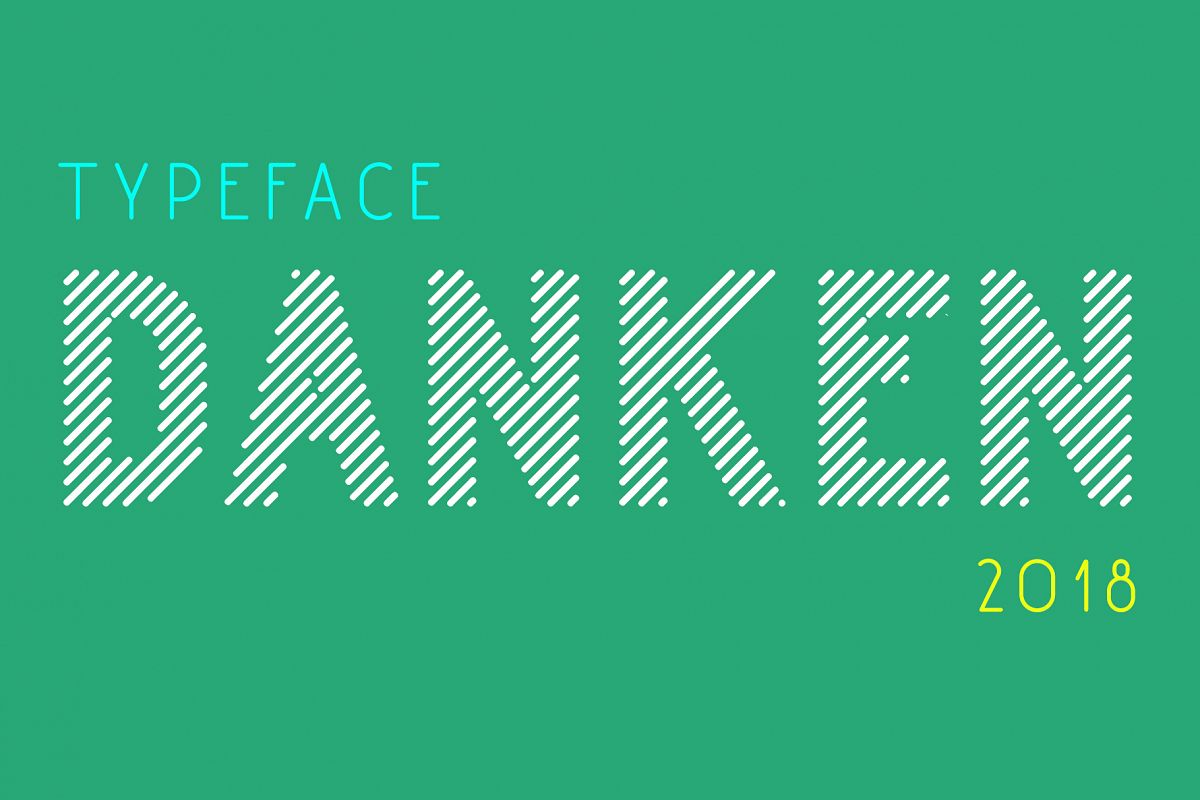
Danken Stripes
Danken is a fun, rounded stripes font that is perfect for a wide range of display purposes!
This font is filled with rounded lines on a 45 degree angle, and can give your works a very branded and modern look.